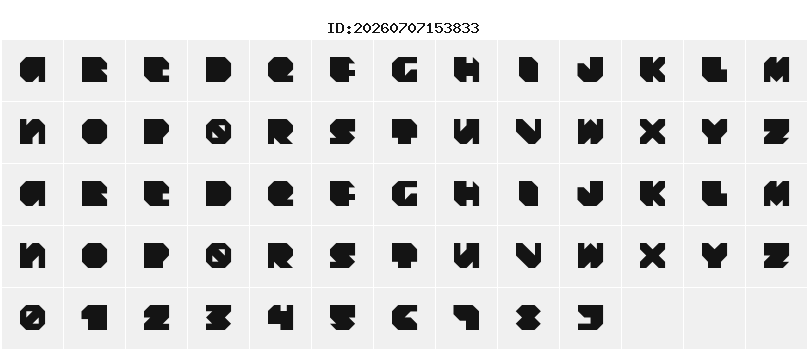
• Font Name: Daydream Daily
• Full Font Name: Daydream Daily
About Daydream Daily.ttf
Daydream Daily.ttf is a modern, elegant sans-serif font designed for ultimate readability and visual harmony. Perfect for branding, headlines, web design, and print materials.